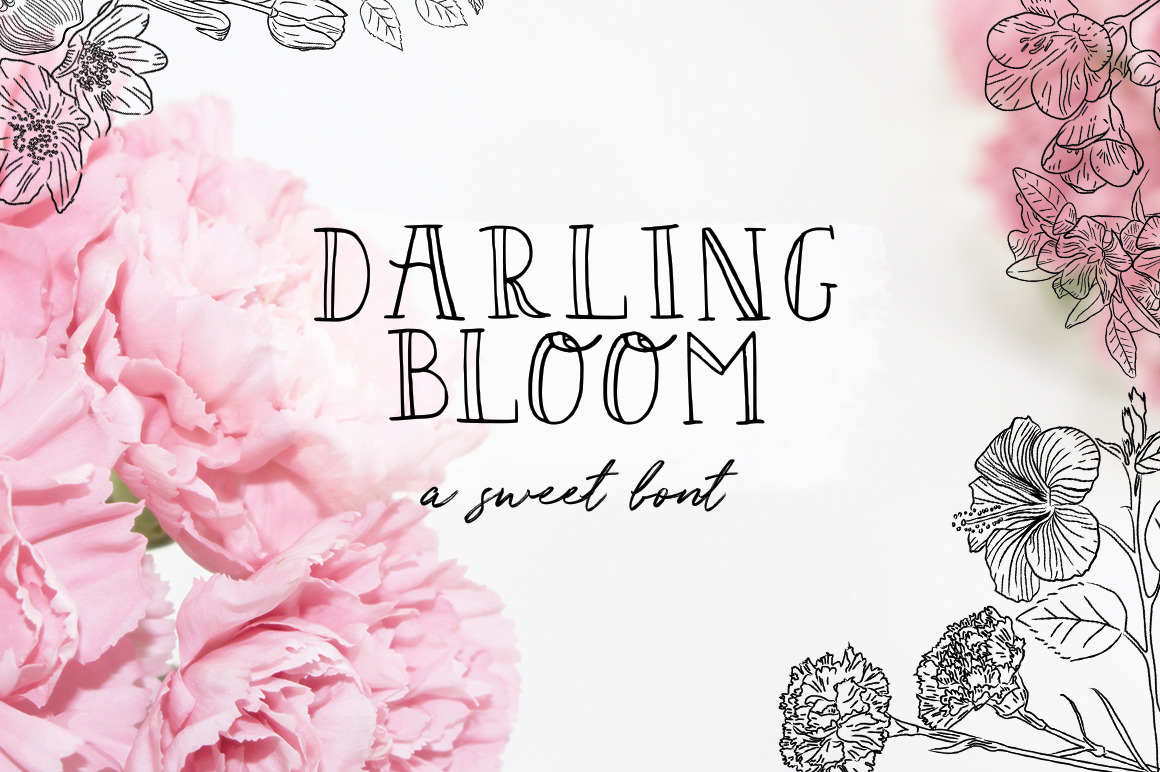
Darling Bloom Font
Introducing Darling Bloom a fabulously fragrant new font, drawn by hand, with love! Perfect for adding that hand-made touch to your wedding invites, stationary or even a cute logo!